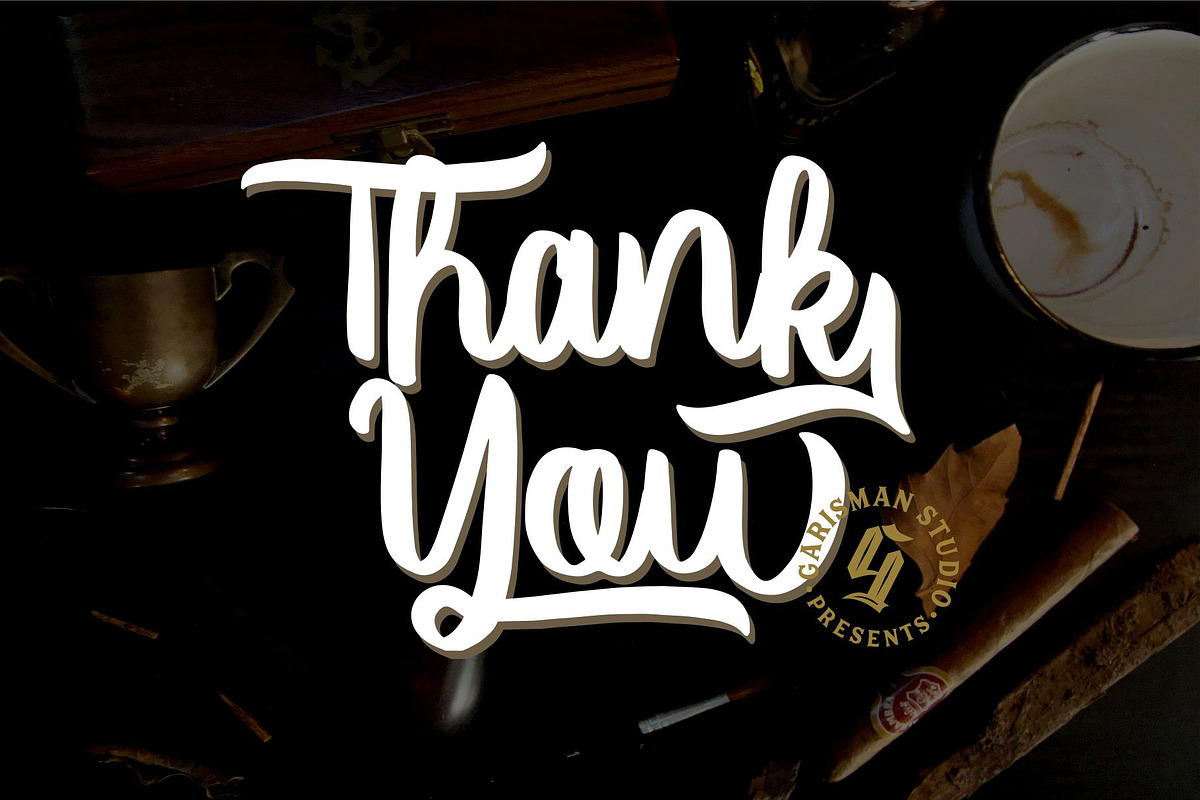
Vector Type
Welcome to our newest product: VECTOR TYPE
In addition, this font is very suitable for design t-shirts, branding projects, wedding designs, social media posts, advertisements, product packaging, product, and logo. designs, labels, photography, watermark, invitation, stationery and any projects that need handwriting taste.
- Include Stylistic Set 1, Stylistic Set 2, Stylistic Set 3, Stylistic Alternates, and also ligature